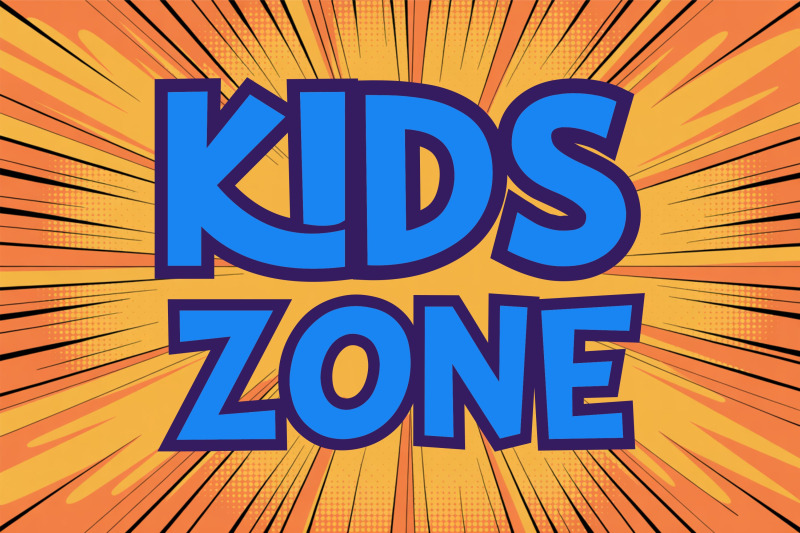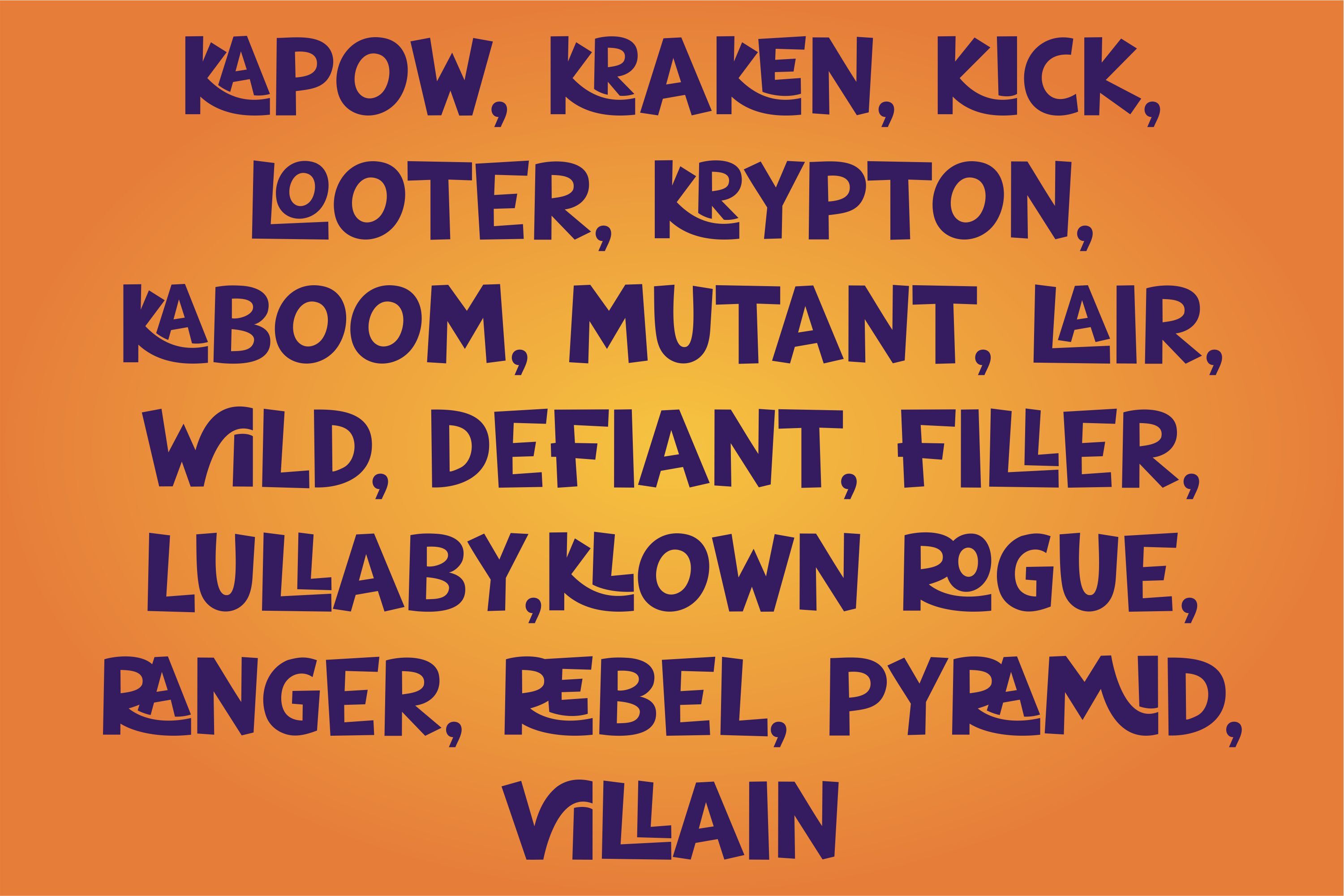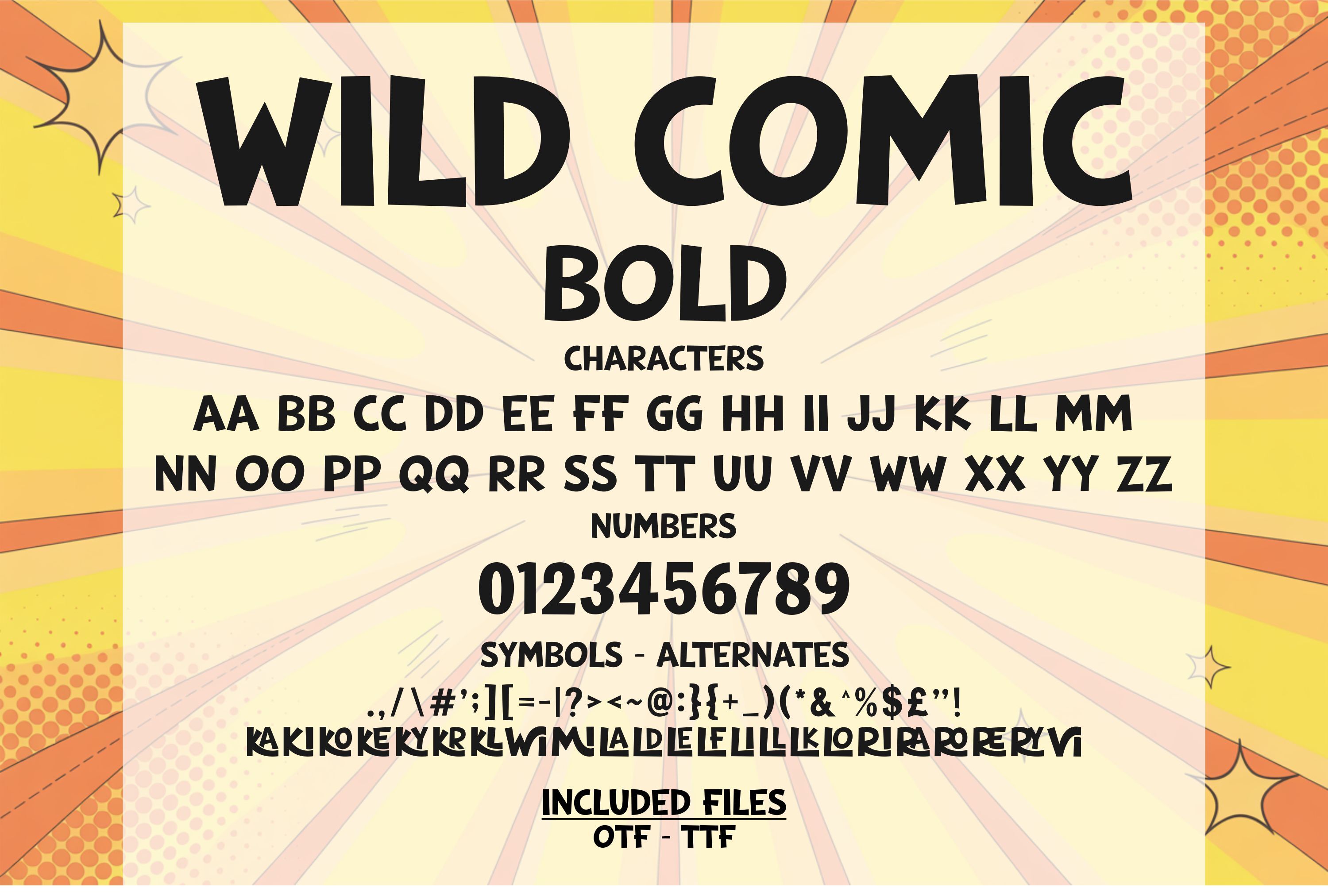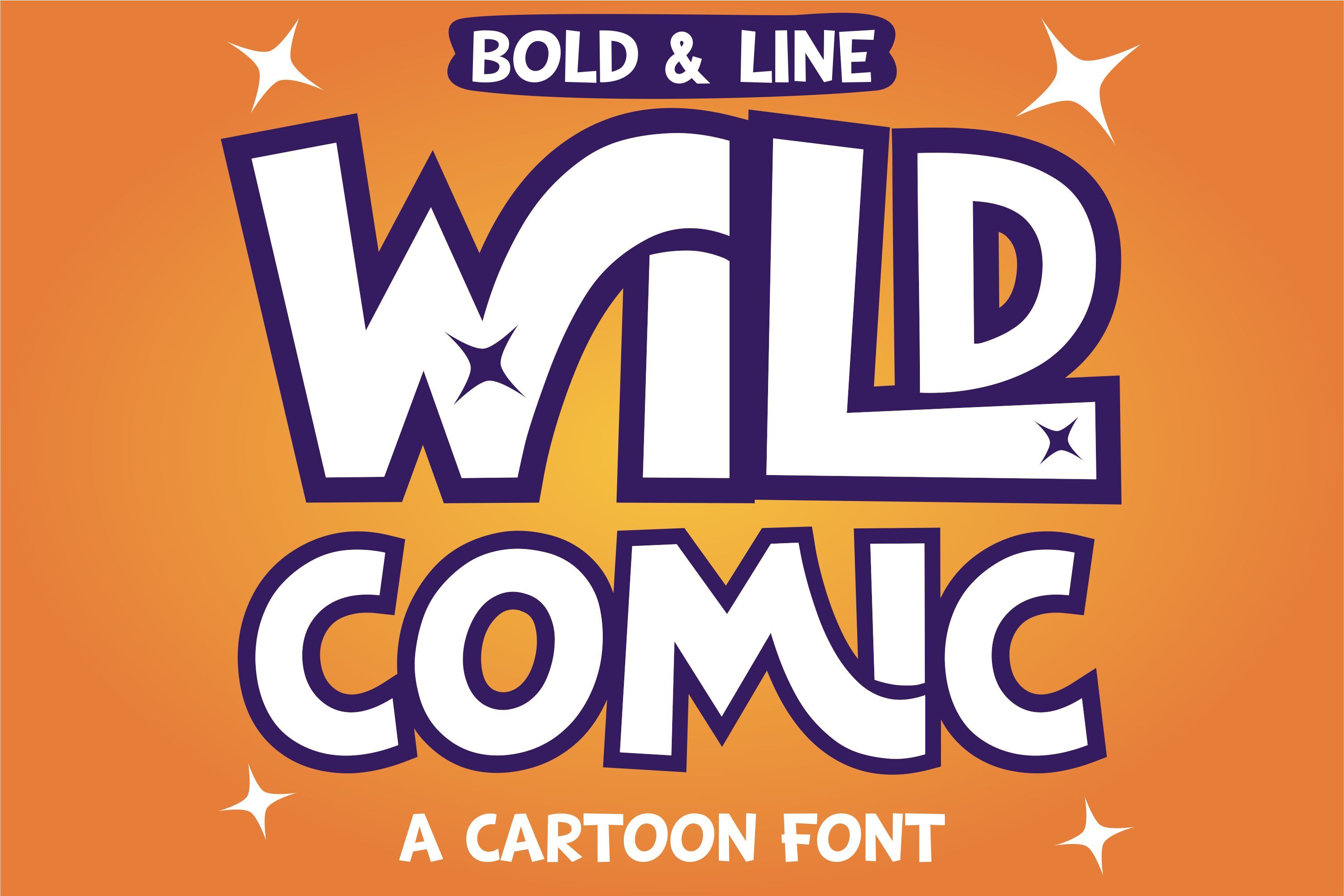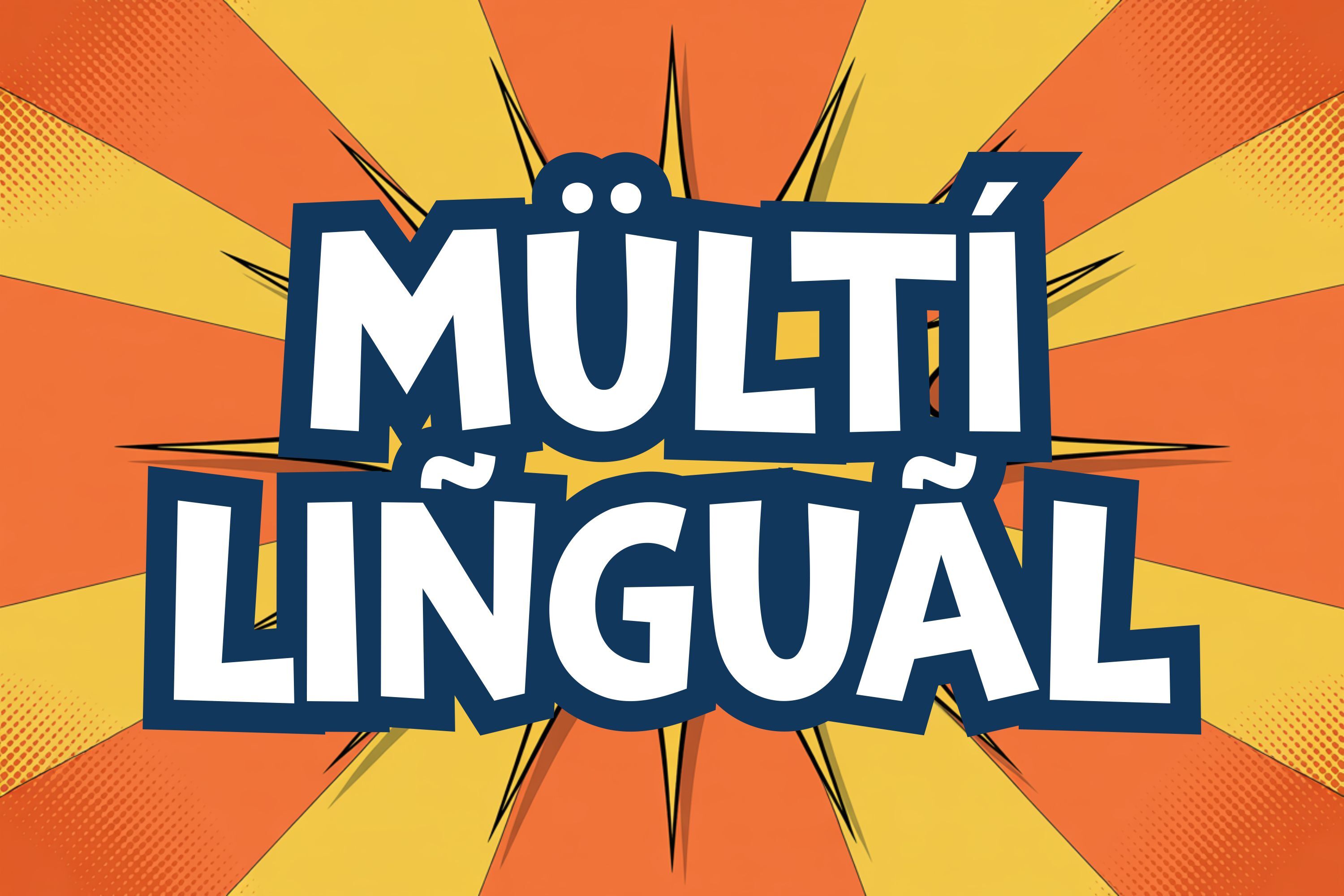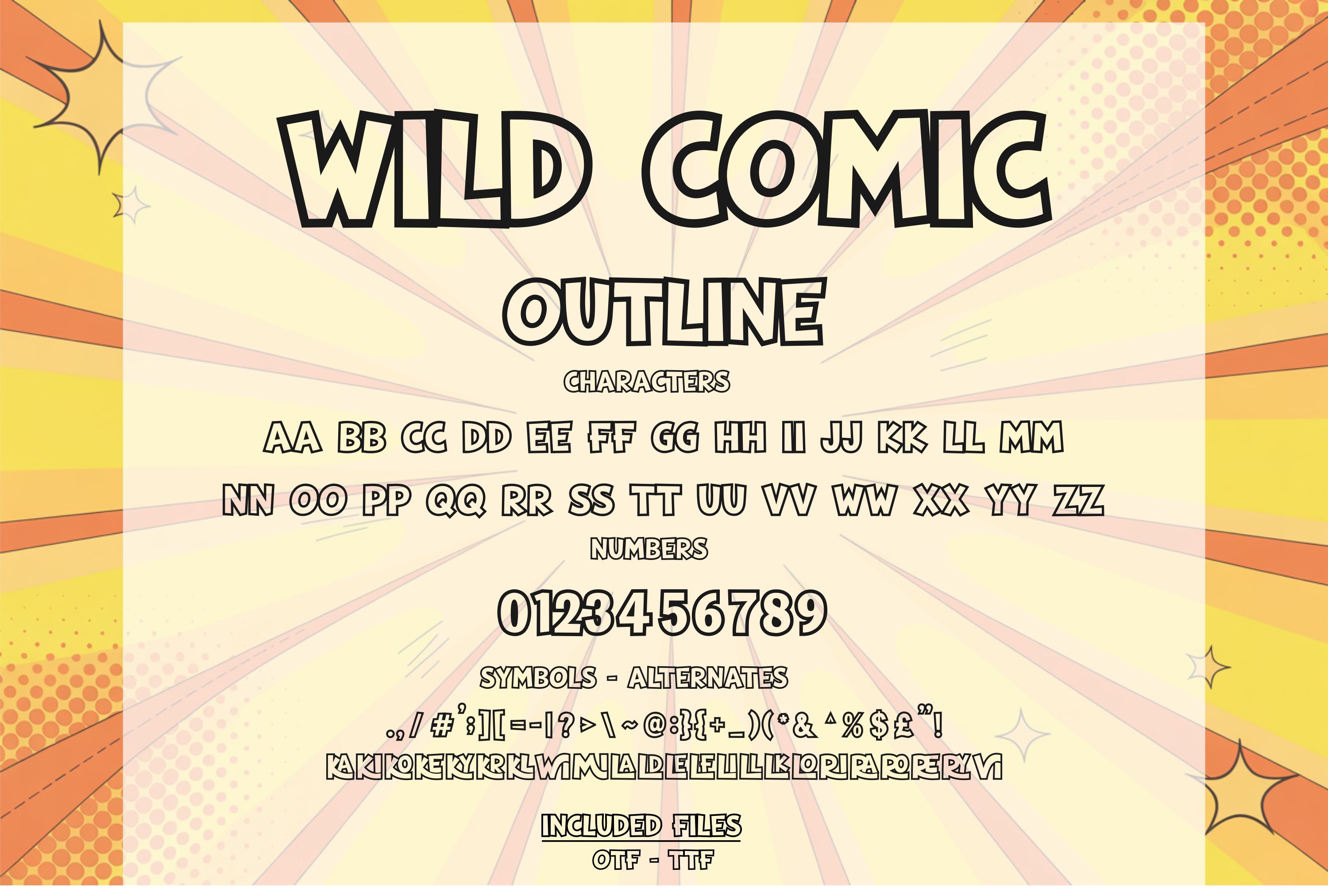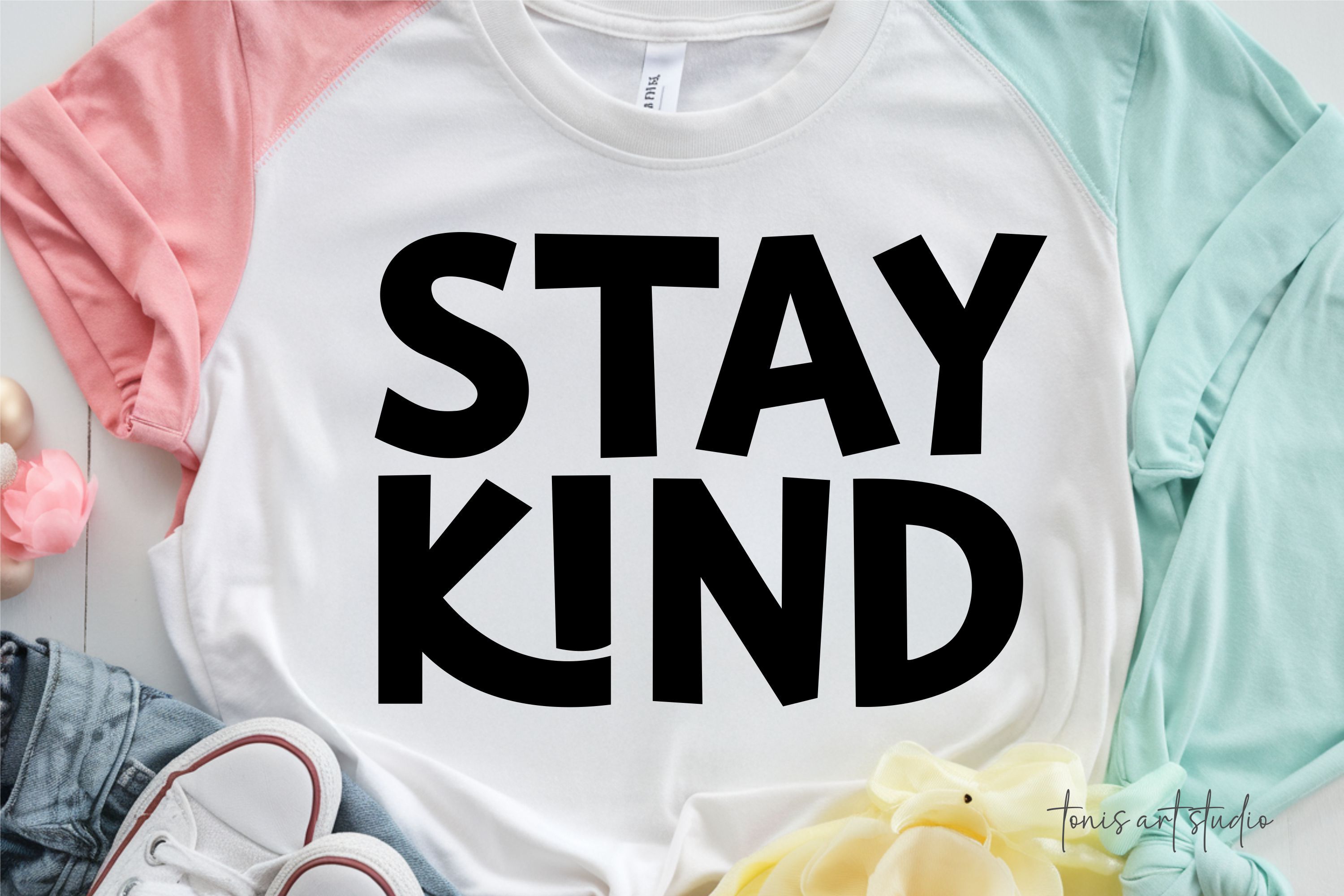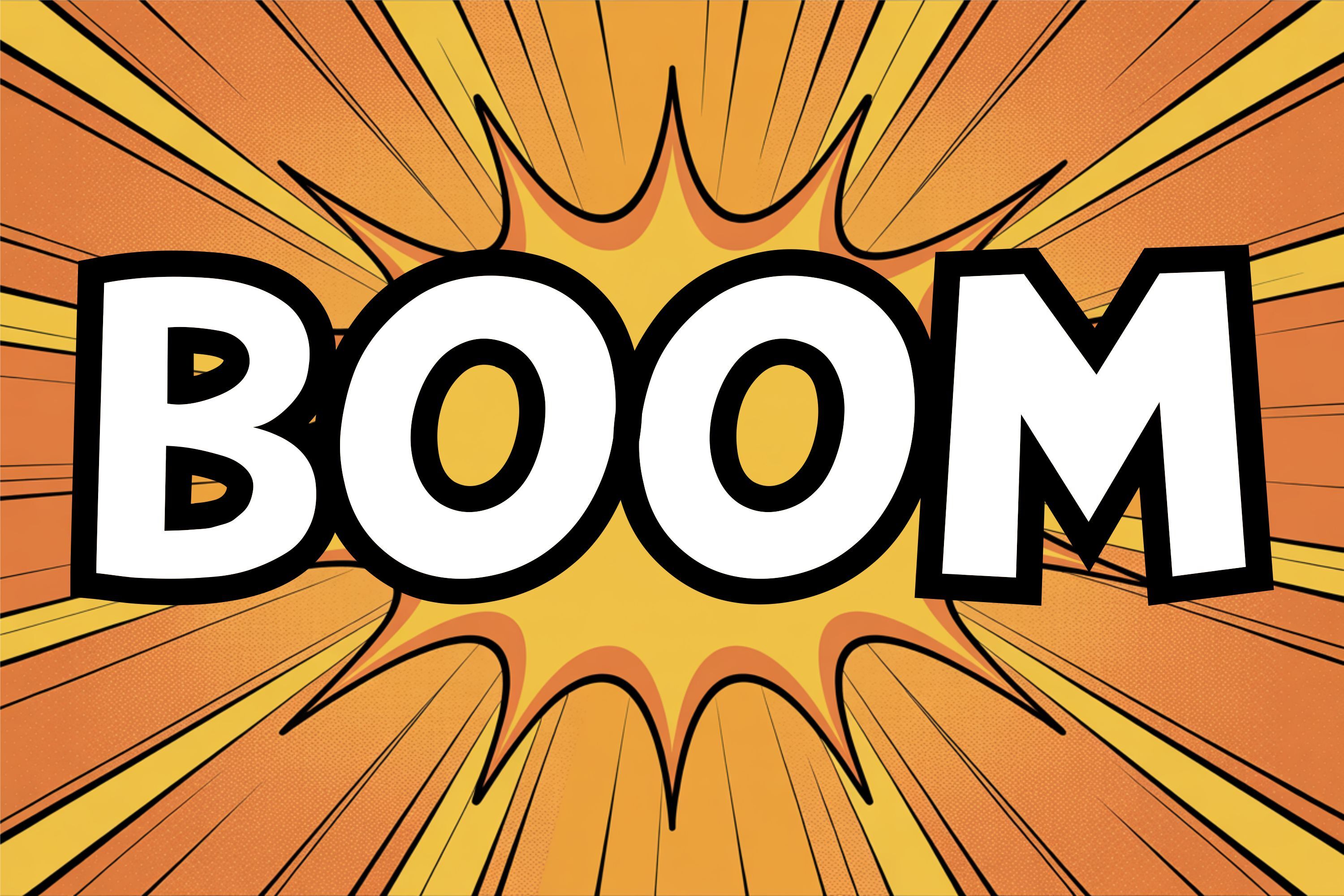
Wild Comic is a bold and playful cartoon font that adds energy and fun to every project! Designed with smooth, clean curves and a hand-drawn comic feel, this font is perfect for kids’ designs, party invitations, YouTube thumbnails, stickers, classroom posters, and colorful T-shirts.
The Wild Comic font family includes two styles — Bold and Outline — which can be used separately or layered for a striking comic-book effect. This makes it easy to create dynamic titles, eye-catching graphics, and playful letter combinations that stand out in any design.
Use Wild Comic for classroom materials, children’s books, posters, gaming streams, or social media graphics. It works beautifully for party invitations, birthday decorations, stickers, and wall art. Its cheerful, comic-book style is perfect for making any project pop with personality and fun!
✔ Wild Comic Bold & Wild Comic Outline styles
✔ Full uppercase alphabet, numbers, punctuation, alternates
✔ Smooth, clean, playful design ideal for kids’ projects
Bring a lively comic-book touch to your next project with Wild Comic and watch your designs explode with color and energy!